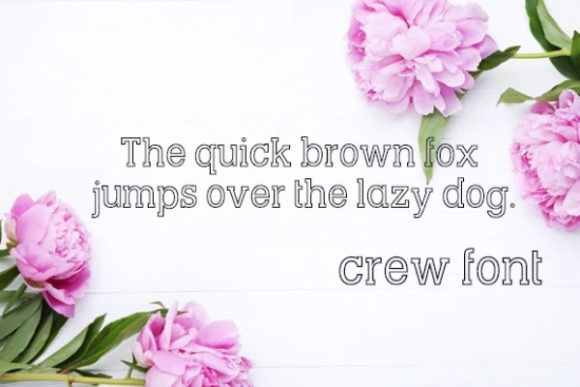
The Crew Font: Elevate Your Designs with a Playfully Conceptual Typeface
I’ll never forget the moment I stumbled upon the Crew font while working on a branding project for a trendy boutique hotel. I was struggling to find the perfect font that would capture the essence of the hotel’s eclectic-chic vibe. That’s when I discovered Crew, and it instantly became the star of the show! In this article, I’ll share my love for this lovely display font, its features, and how to make the most of it in your designs.
An Honest Review of Crew Font
What I Love About Crew Font
- ✨ Unique and eye-catching design: Crew font has a distinct, playfully conceptual style that sets it apart from other fonts.
- ✅ Versatility: It can be used in both formal and non-formal designs, making it a great addition to any design library.
- 💡 Instant recognition: The font’s distinctive features make it easily recognizable, even at small sizes.
While Crew font is an excellent choice for many projects, there are a few things to keep in mind:
- 🤔 Legibility at very small sizes: While the font is generally legible, it may become difficult to read at very small sizes (below 10pt). Use it at larger sizes for optimal impact.
- ⚠️ Overuse: As with any bold font, be mindful of overusing Crew font in your design. Balance it with other fonts to maintain visual interest.
The Backstory of Crew Font
While the true story behind Crew font’s creation is unknown, it’s easy to imagine a designer experimenting with bold, playful typography and accidentally stumbling upon this gem. Perhaps they were inspired by street art, graffiti, or classic signage. Whatever the inspiration, Crew font has become a beloved addition to many designers’ toolkits.
| What type of projects is Crew font best suited for? | Crew font is versatile and can be used in a wide range of projects, from branding and advertising to editorial design and social media graphics. |
| Is Crew font suitable for body text? | While Crew font is beautiful, it’s best used as a display font or for short paragraphs of text. For longer body text, consider a more traditional font. |